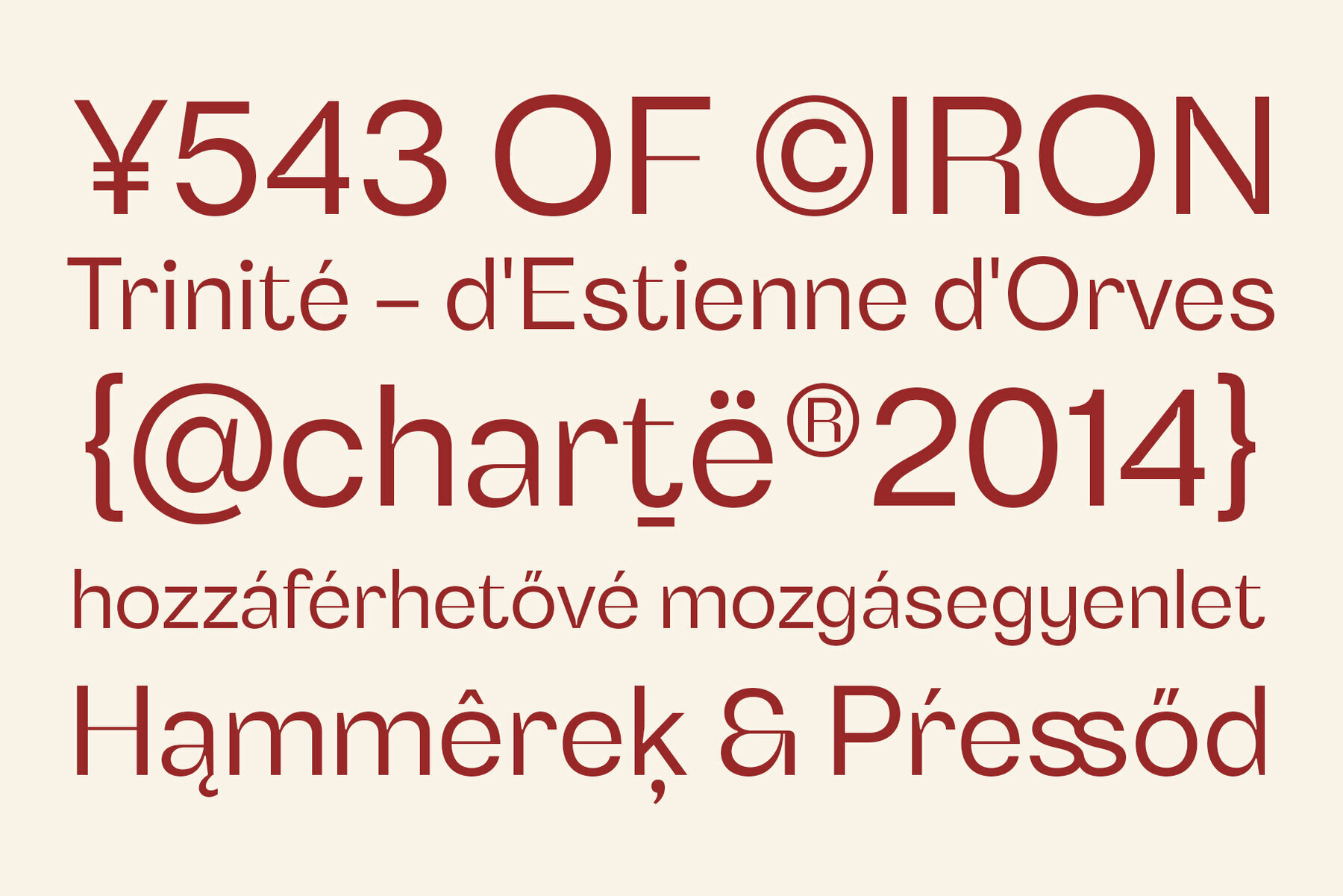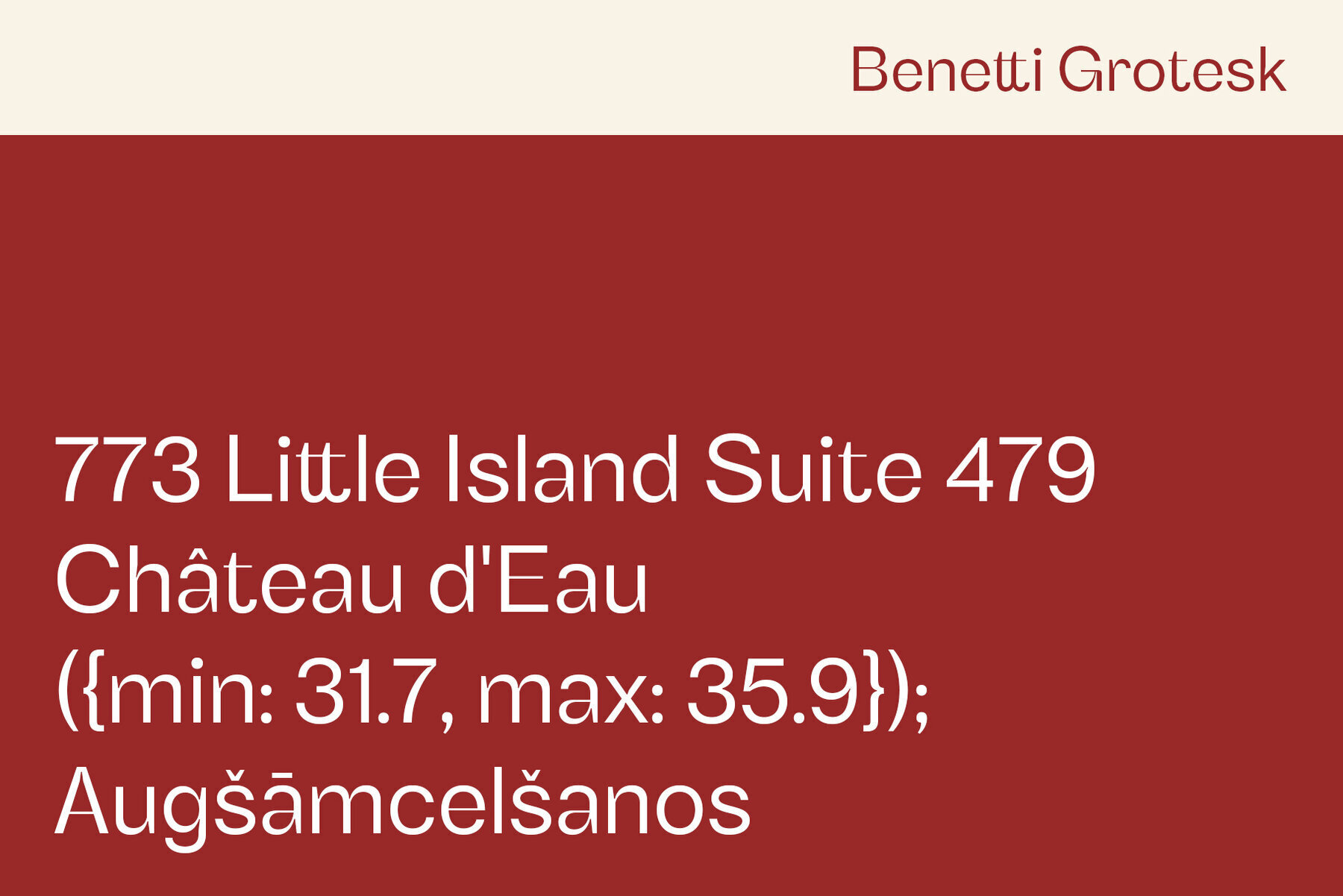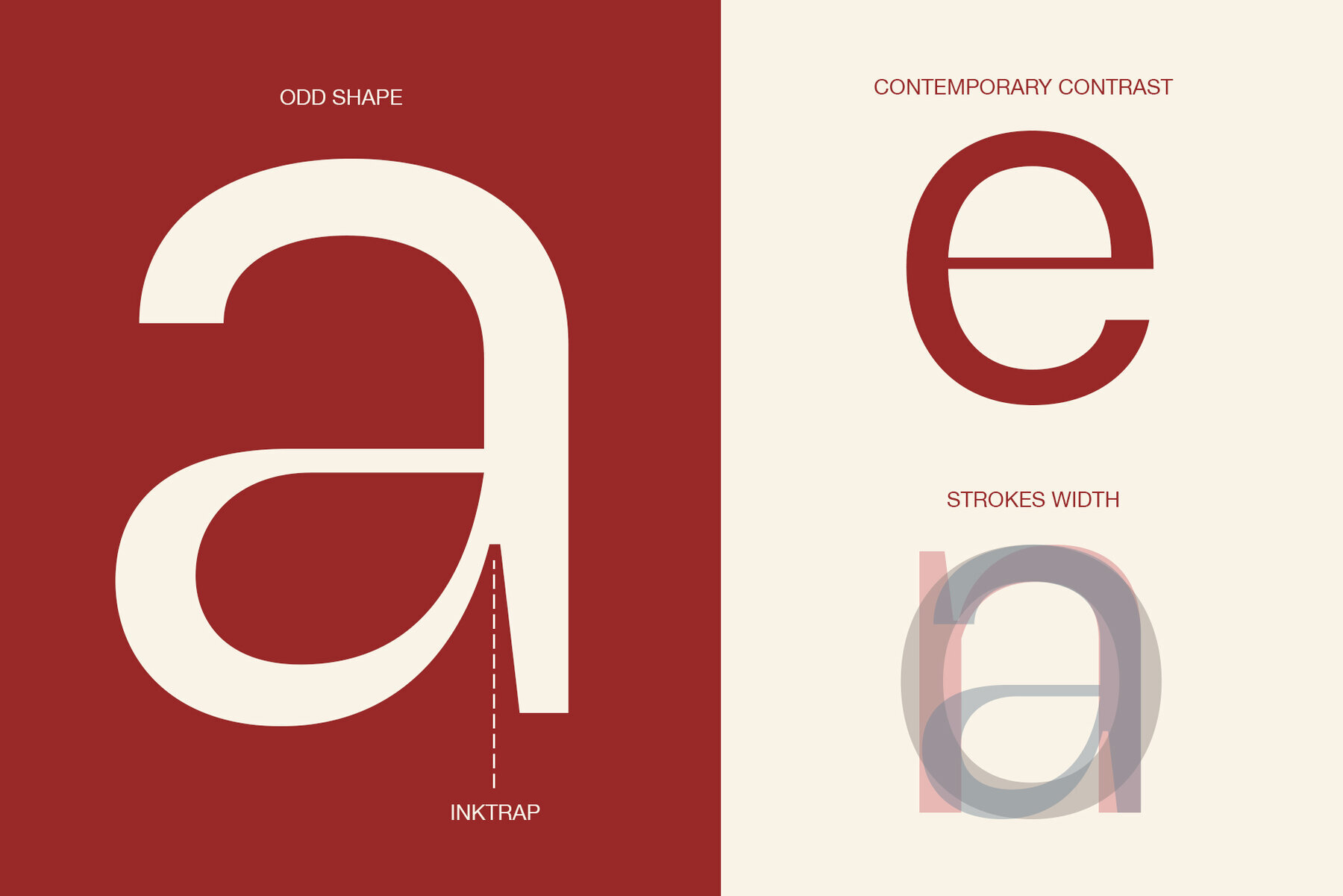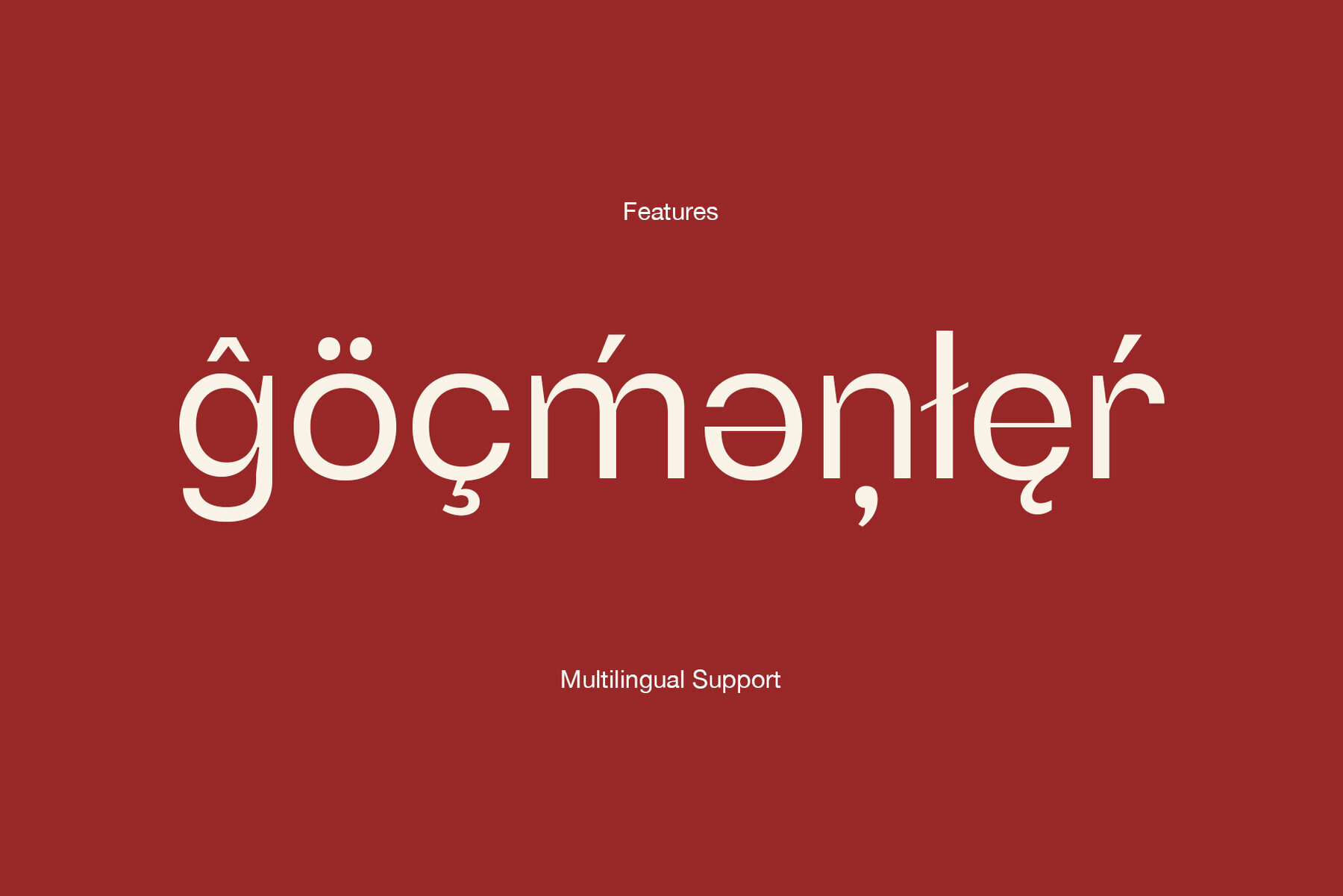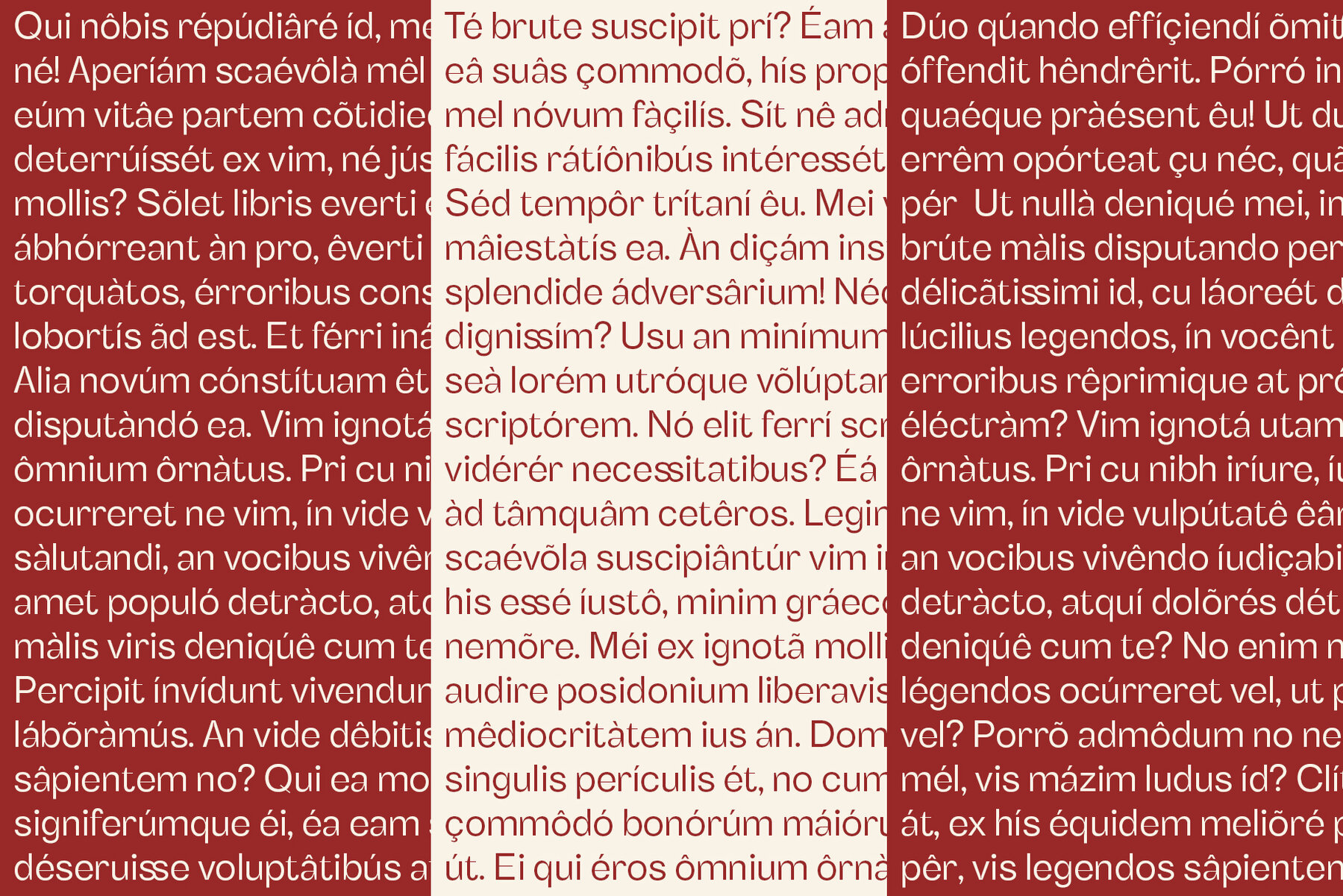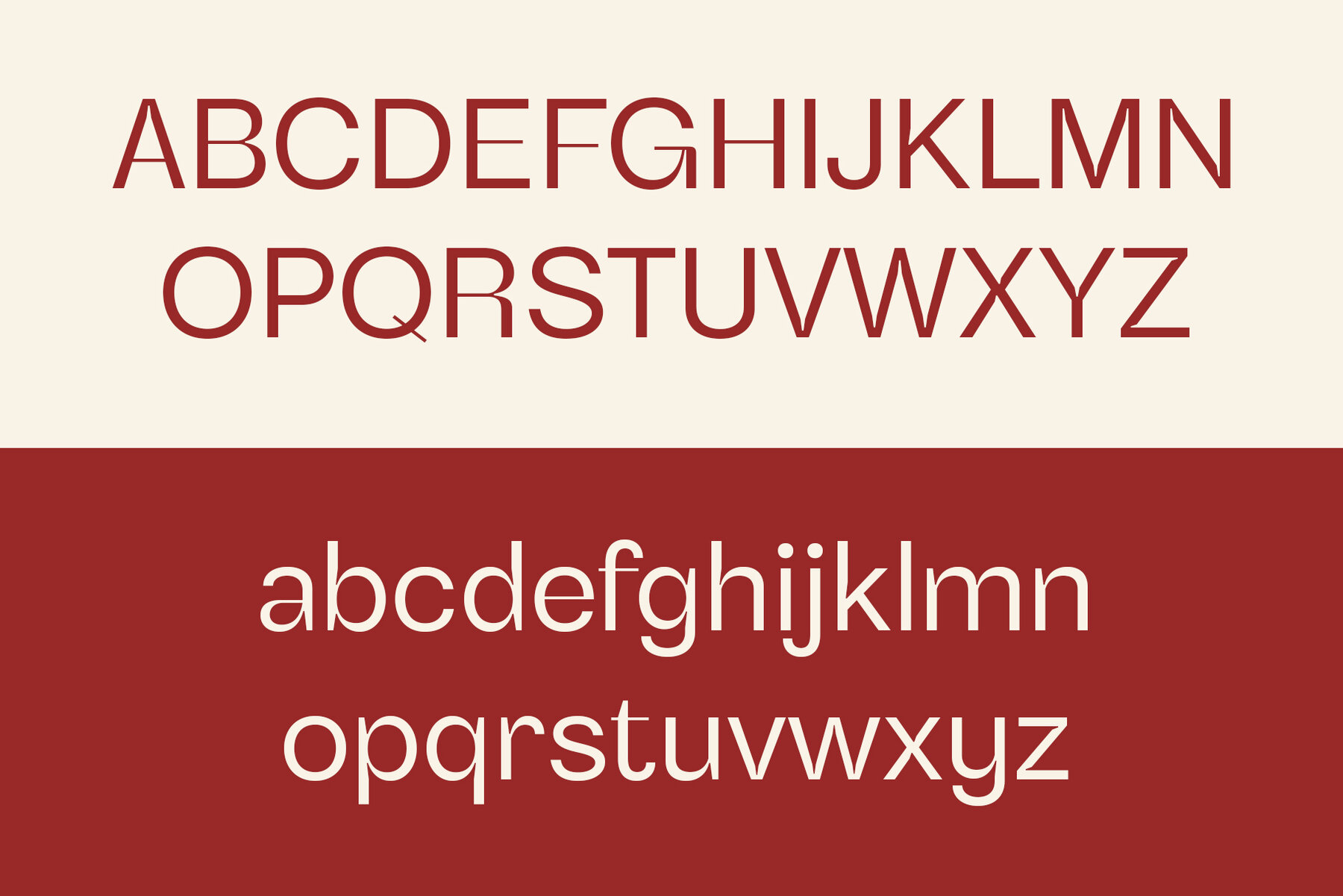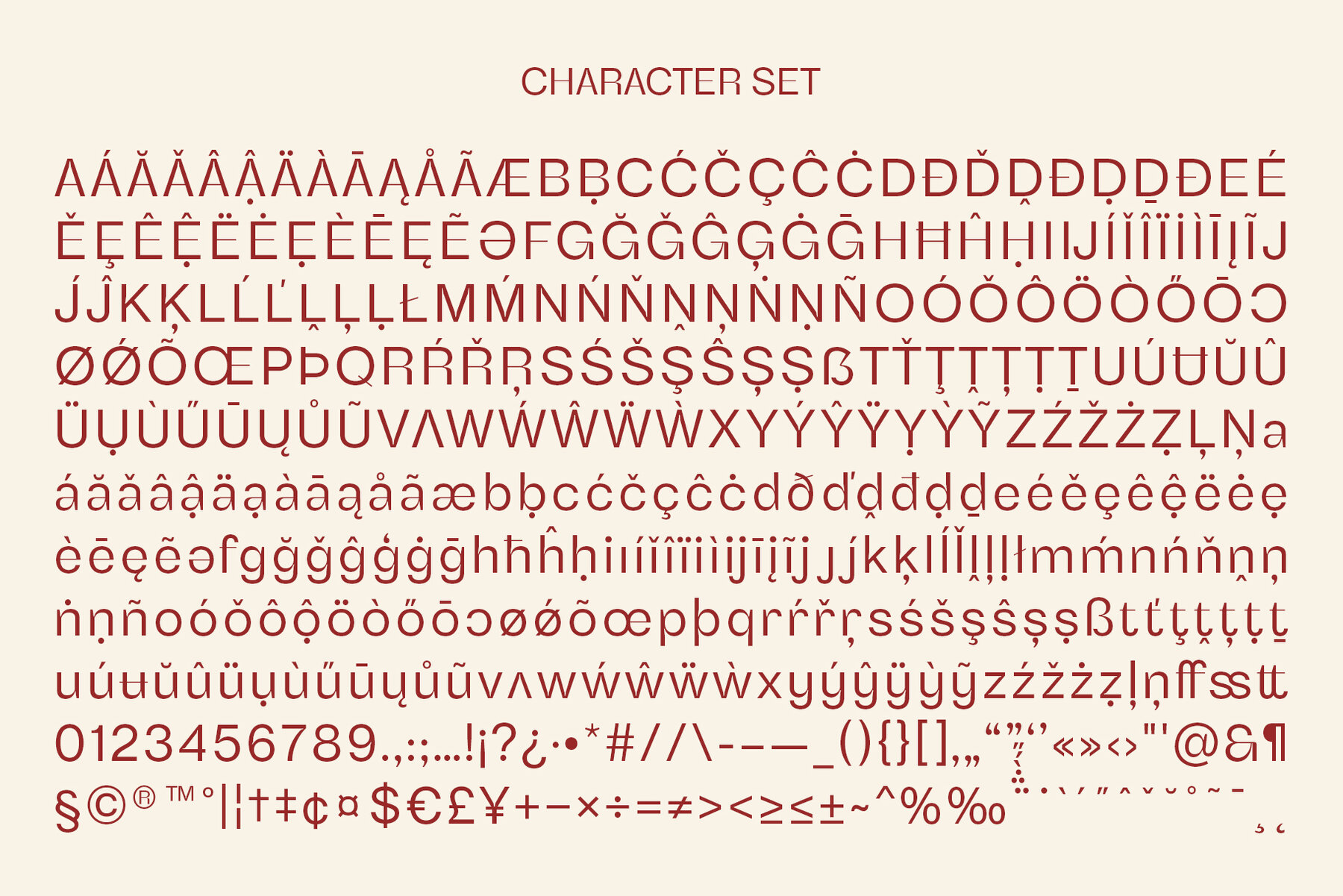
Benetti Grotesk Font
Benetti Grotesk Regular
Give your project an edgy, retro feel with the help of this modern sans-serif.
Benetti Grotesk is the perfect typeface to use for all of your graphic design and marketing projects. It can be used in print materials like magazines or newspapers, but it's also great when creating online content such as blog posts and website designs.